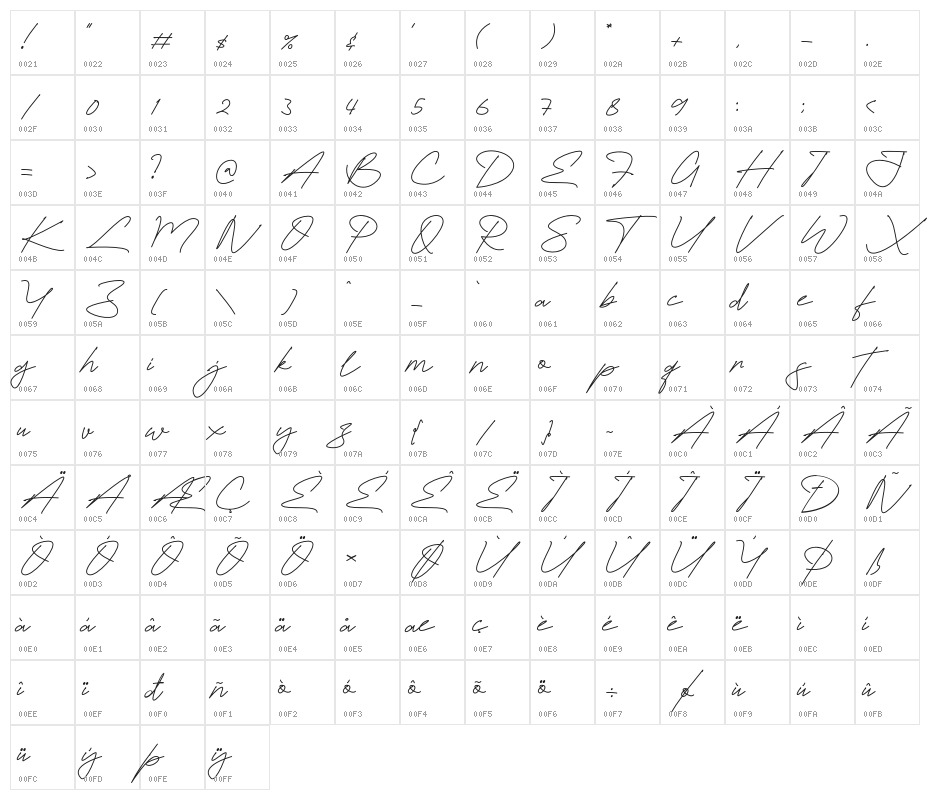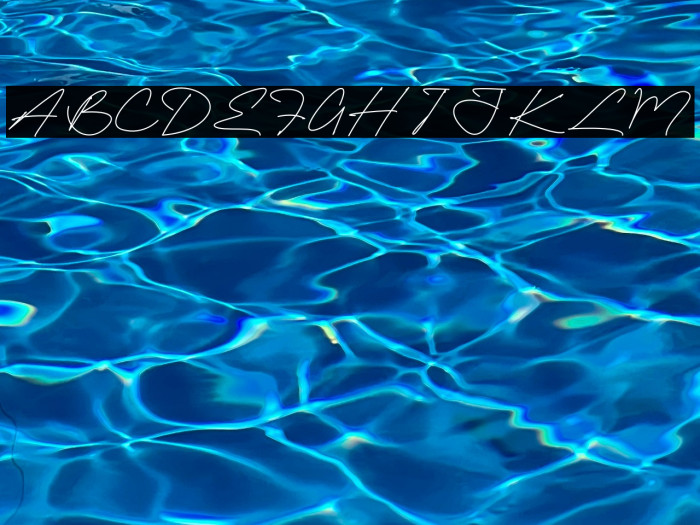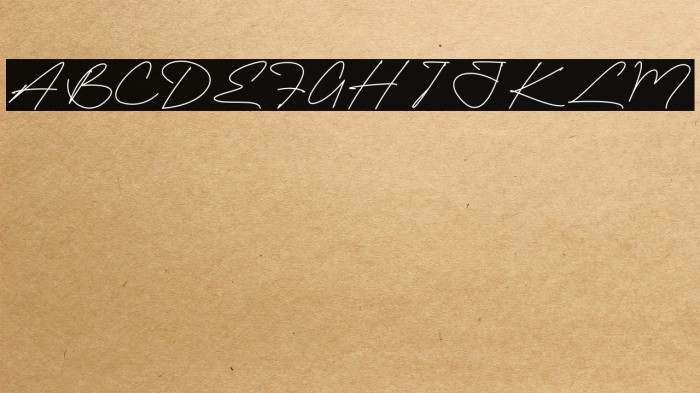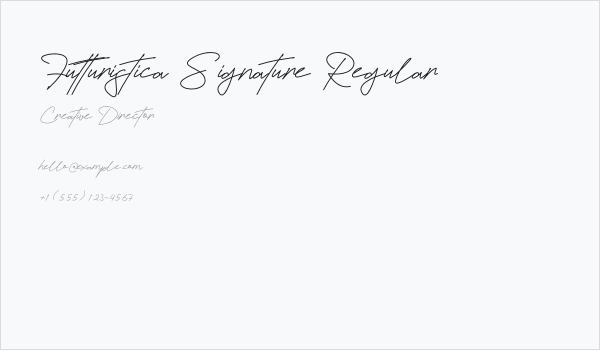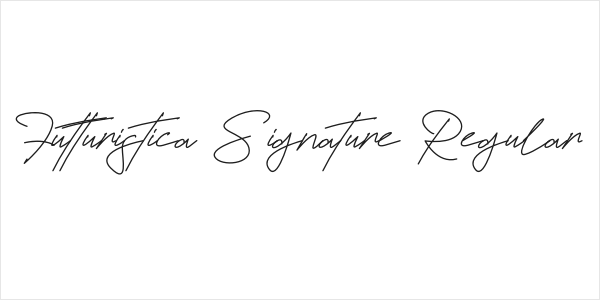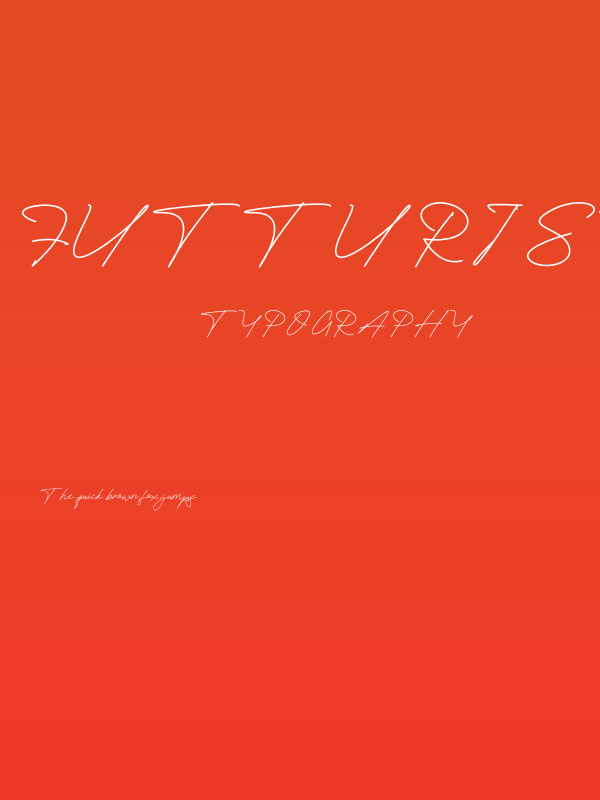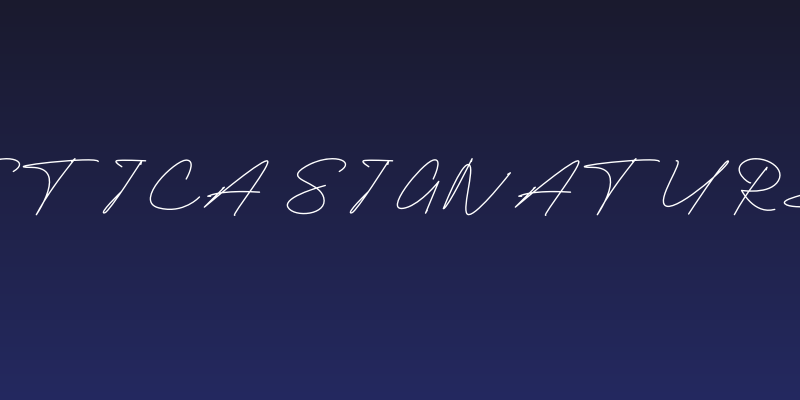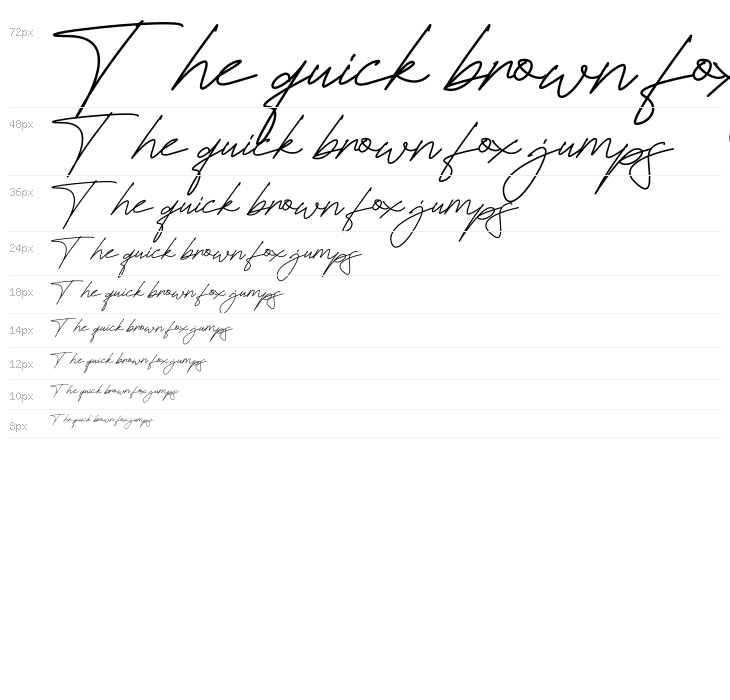
Futturistica Signature Regular Font
Futturistica Signature Regular Description
This font exudes a modern and elegant handwritten style, characterized by its fluid and continuous strokes. The uppercase letters are slightly more restrained, maintaining a sense of sophistication, while the lowercase letters exhibit a more pronounced cursive flair. The numerals and special characters are consistent with the overall script style, ensuring a cohesive look across all elements. The font's delicate lines and smooth curves make it ideal for projects that require a personal touch, such as invitations, greeting cards, and branding materials.
| Proposed Projects | Ideal for wedding invitations, personal branding, greeting cards, and elegant logos. |